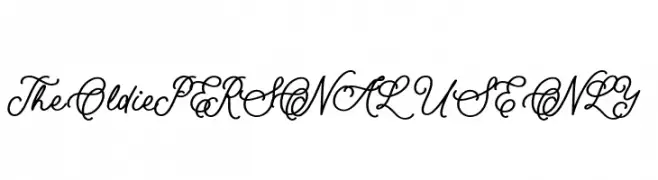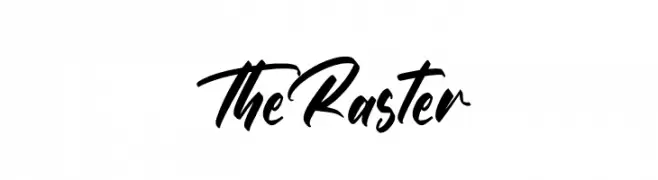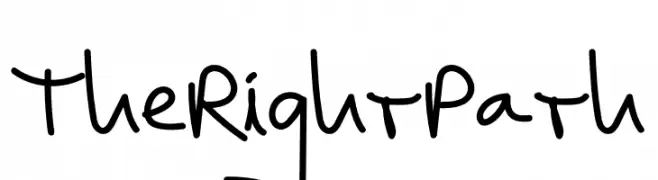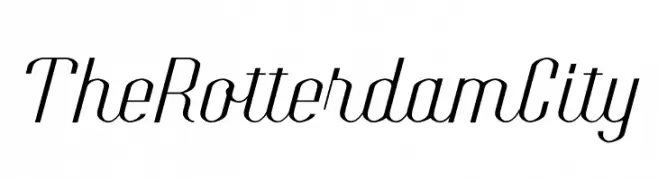
A modern, geometric font with clean lines and a uniform appearance.
A bold, textured font with a bandage-like design, perfect for thematic and creative projects.
A whimsical and quirky font with playful curves and uneven strokes.
An elegant script font with ornate uppercase and smooth, connected lowercase letters.
A playful, artistic script font with a hand-drawn, whimsical style.
A bold, expressive script font with a dynamic, handwritten style.
A playful, casual handwritten font with dynamic strokes and a lively slant.
A dynamic, handwritten font with fluid strokes and a casual elegance.
A modern script-like font with elegant, slanted characters and moderate contrast.